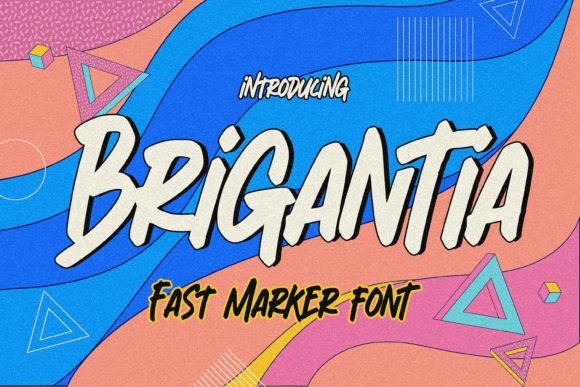
The Ultimate Guide to Brigantia Font: Elevate Your Designs with Style
I’ll never forget the time I was working on a wedding invitation project, and my client asked for a font that was both elegant and bold. I scoured the internet, tried out countless fonts, but nothing seemed quite right. That was until I stumbled upon Brigantia Font. With its textured style, classy look, and dramatic movement, it was love at first sight! In this article, I’ll share my experience with Brigantia Font, its features, and how to make the most of it in your designs.
An Honest Review of Brigantia Font
What I Love About Brigantia Font
- ✨ Unique Textured Style: Brigantia Font boasts a distinctive textured style that adds depth and character to any design.
- ✅ Elegant and Versatile: Its classy look makes it perfect for a wide range of projects, from logos and invitations to product packaging and wedding designs.
- 💥 Dramatic Movement: The font’s dynamic movement adds a touch of drama and flair to your designs.
While Brigantia Font is an excellent choice for many projects, there are a few things to keep in mind:
- ⚠️ Legibility at Small Sizes: As with many textured fonts, Brigantia may not be the best choice for very small text sizes or body copy.
- 🤔 Pairing with Other Fonts: Due to its bold and dramatic nature, Brigantia may require careful pairing with other fonts to avoid visual overload.
- Experiment with OpenType features, such as stylistic alternates, to add variety to your text.
The Backstory of Brigantia Font
Brigantia Font was designed with the intention of creating a unique and versatile typeface that could add a touch of elegance and drama to any design. Inspired by classic calligraphy and modern digital fonts, Brigantia Font is the result of careful craftsmanship and attention to detail.
Q: What type of projects is Brigantia Font best suited for?
A: Brigantia Font is great for a wide range of projects, including logos, printed quotes, invitations, cards, product packaging, headers, stationery, wedding designs, labels, and special events.
Q: Is Brigantia Font available in different weights or styles?
A: Brigantia Font comes in a range of styles, including regular, bold, and italic. You can experiment with different weights and styles to add depth and variety to your designs.